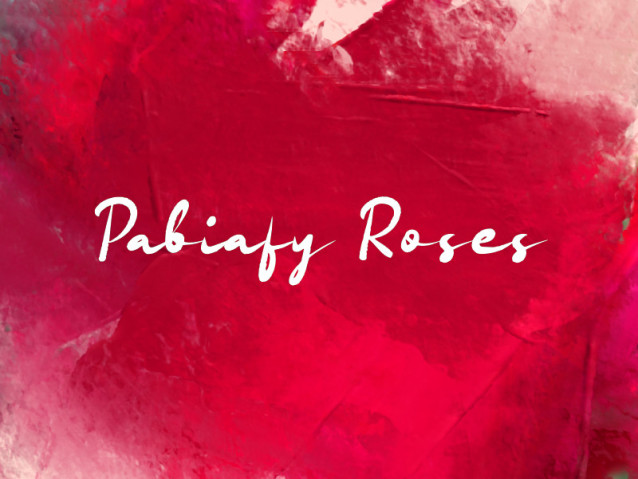
Pabiafy Roses Font
Pabiafy Roses Font is a modern handwritten-style font that captures the natural flow and expressive charm of brush lettering. With its smooth curves and slightly uneven strokes, it brings a personal, organic feel to any design. This font is perfect for creative projects such as branding, social media graphics, invitations, and packaging, where a touch of authenticity and warmth is desired. Its elegant yet casual appearance makes it highly versatile, balancing readability with artistic flair.